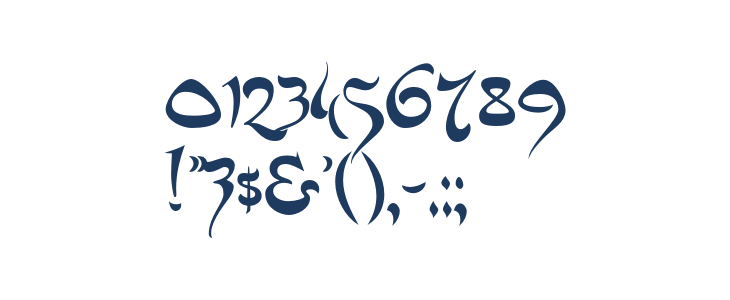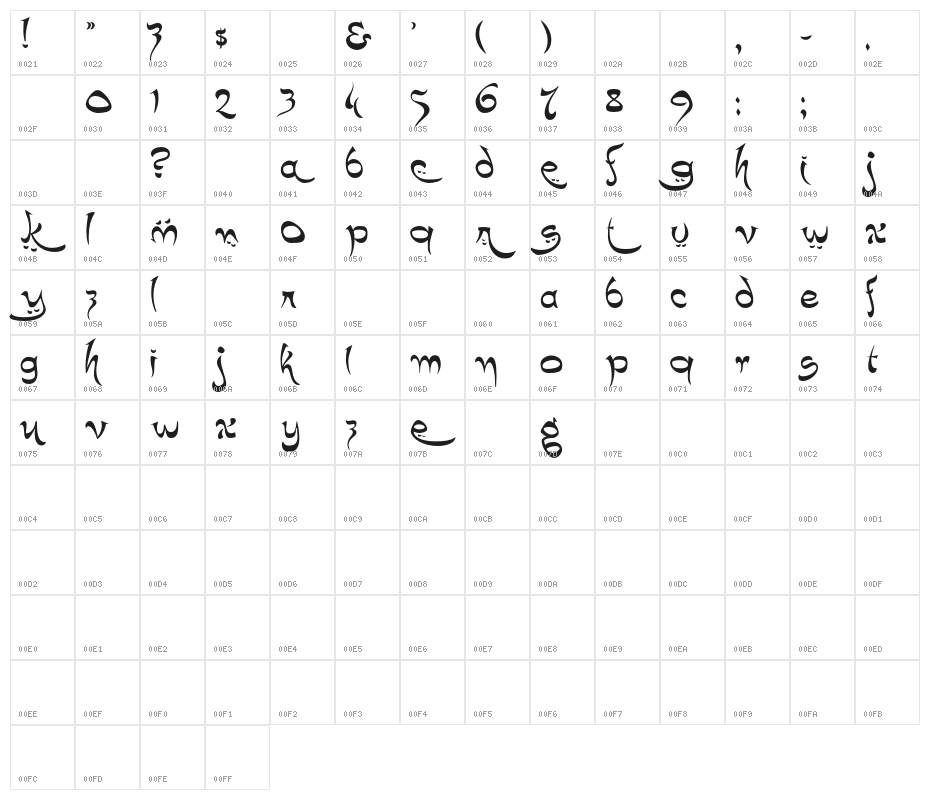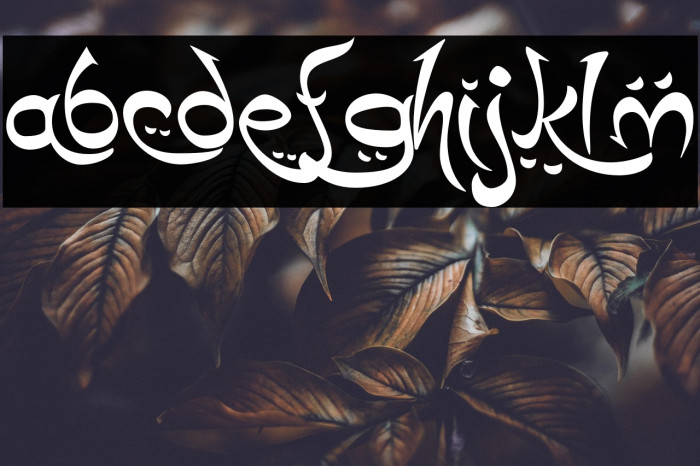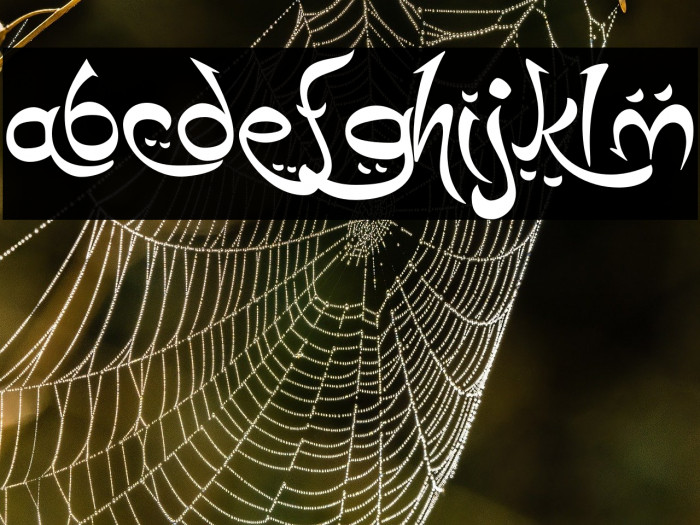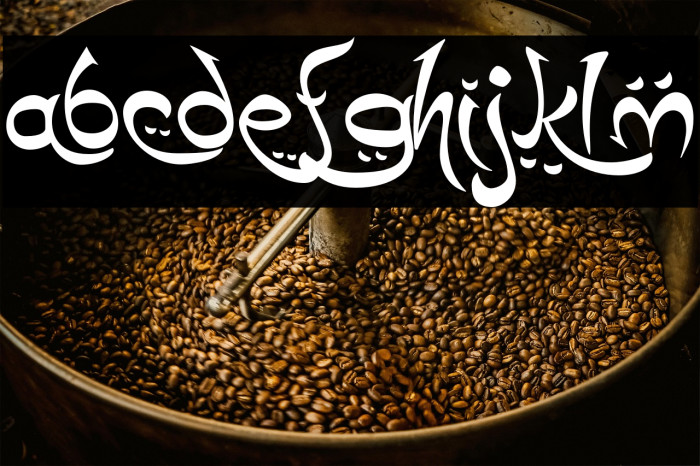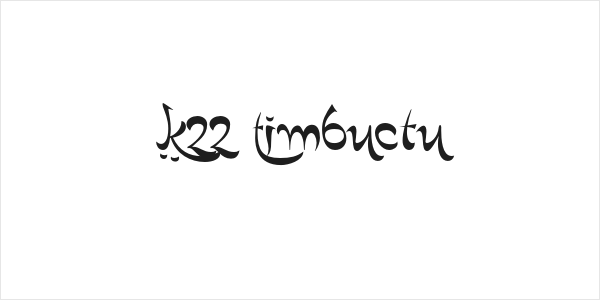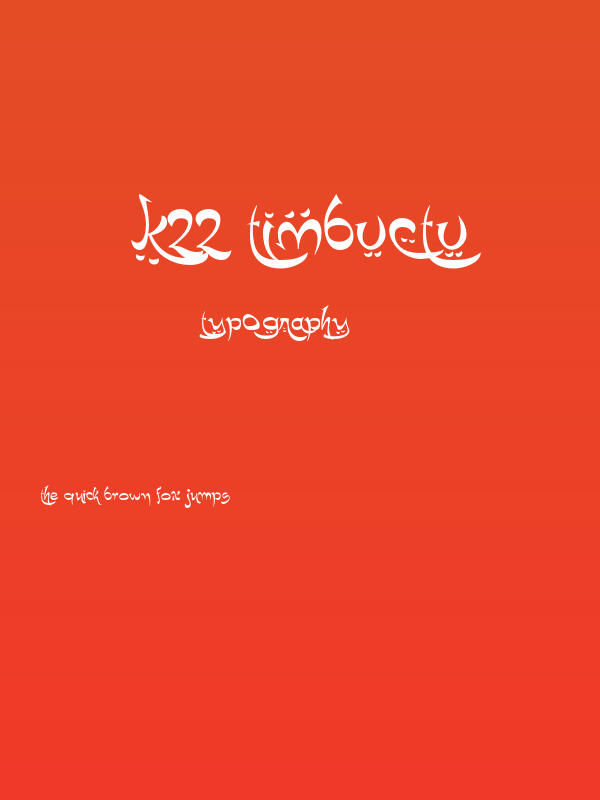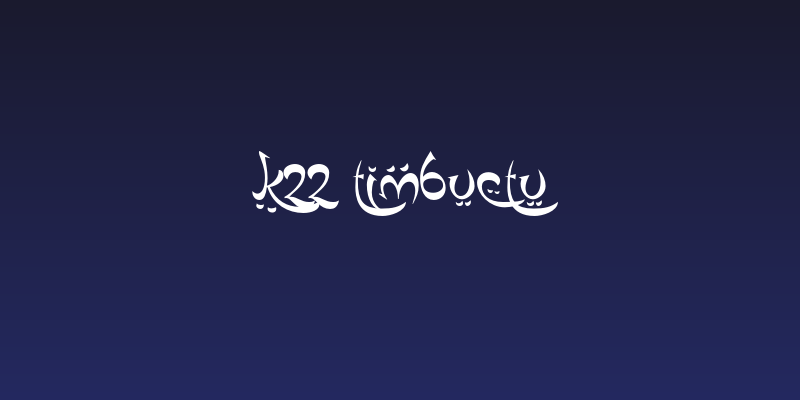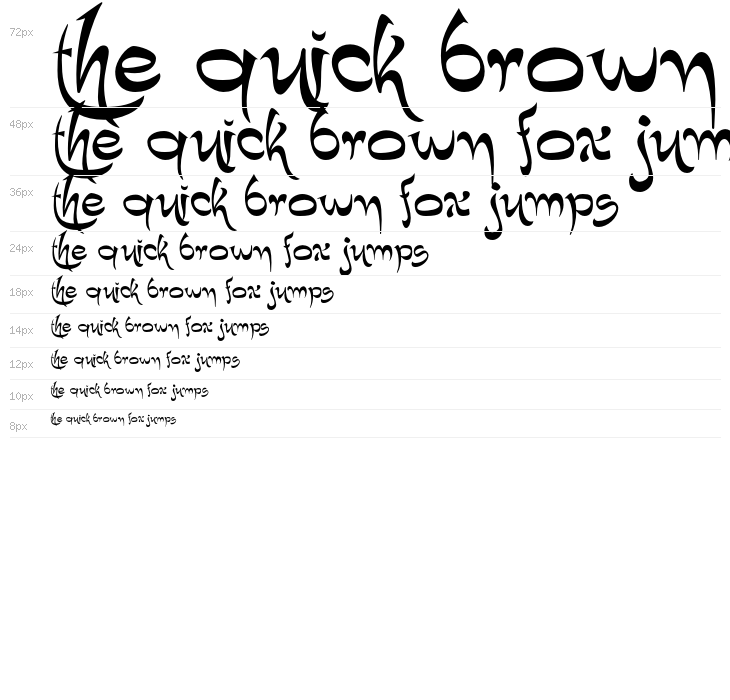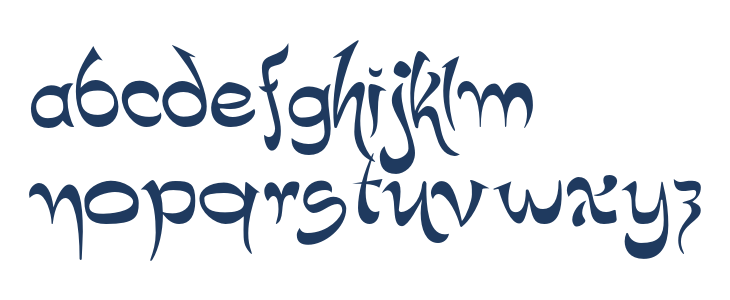
K22 Timbuctu Font
K22 Timbuctu Description
This font exhibits a highly decorative and artistic style, characterized by its whimsical and playful letterforms. Each character is uniquely crafted with intricate details and flourishes, giving it a lively and dynamic appearance. The font features a mix of thick and thin strokes, creating a medium contrast that adds to its visual interest. The characters are closely spaced, enhancing the compact and cohesive look of the text. This font's distinctive style makes it suitable for creative and expressive design projects where a bold and eye-catching typeface is desired.
Proposed ProjectsIdeal for artistic posters, creative branding, children's book covers, and unique invitations.